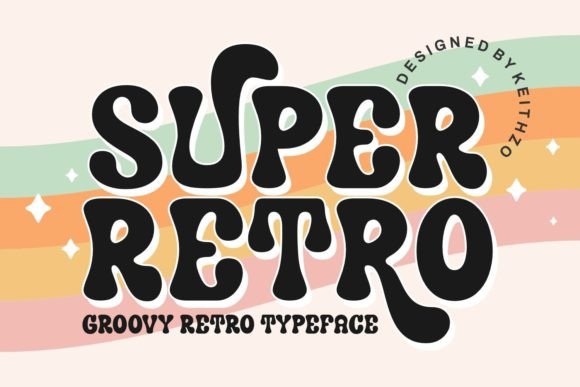
Introducing Super Retro Font, the ultimate choice for fashion-forward individuals seeking the best font for headings! Created by the talented Keithzo from 7NTypes, this retro-inspired display font is here to revolutionize your designs.
With its irregular lines and uneven letters, Super Retro exudes a captivating sense of uniqueness that will make your creations stand out from the crowd. Say goodbye to boring and predictable fonts, and embrace the dynamic and energetic look this font brings to the table.
Whether you're working on posters, album covers, or designs that require a vintage and edgy feel, Super Retro has got you covered. It effortlessly adds a touch of nostalgia and rebelliousness that will take your projects to new heights. Get ready to make a bold statement that commands attention and leaves a lasting impression.
But that's not all – Super Retro is more than just a pretty face. This font is PUA encoded, which means you can easily access all the delightful glyphs and swashes it offers. Unlock a world of creative possibilities and effortlessly infuse your designs with that extra dose of personality and flair.
Don't settle for mediocre fonts that fail to inspire. Let Super Retro be your secret weapon in the world of design, allowing you to create visually stunning and emotionally captivating masterpieces. Download it now and experience the power of retro-chic fonts firsthand!
Embrace the nostalgia, unleash your creativity, and join the ranks of design trendsetters who choose Super Retro Font as their go-to option. Upgrade your projects with a touch of vintage charm and watch as your designs captivate and mesmerize. Don't miss out on this opportunity to elevate your creations to the next level – download Super Retro Font today!